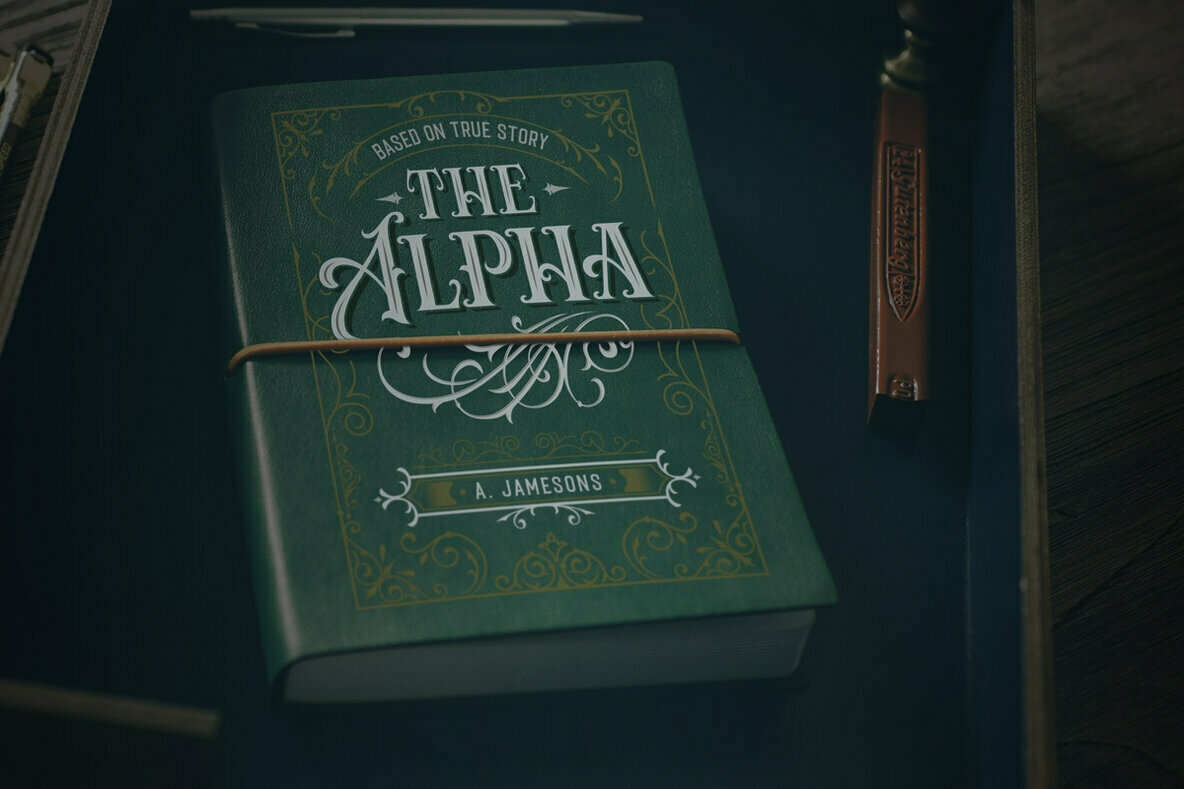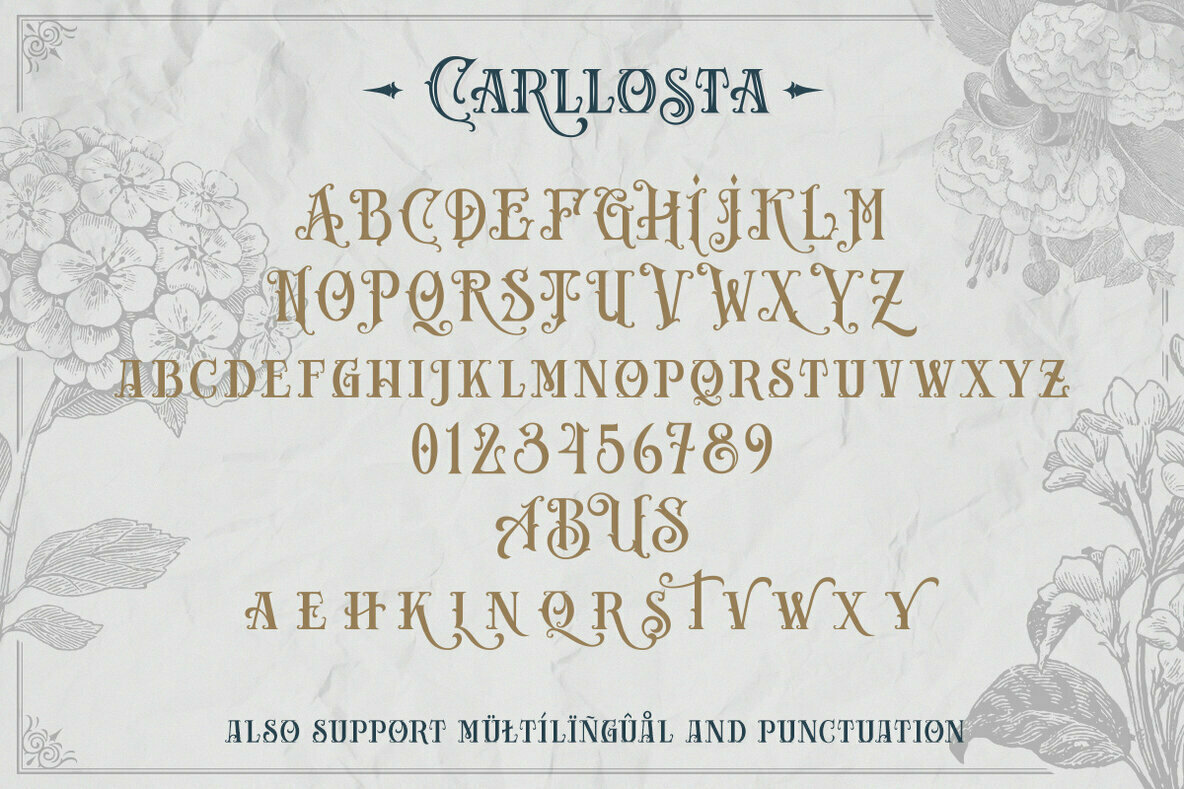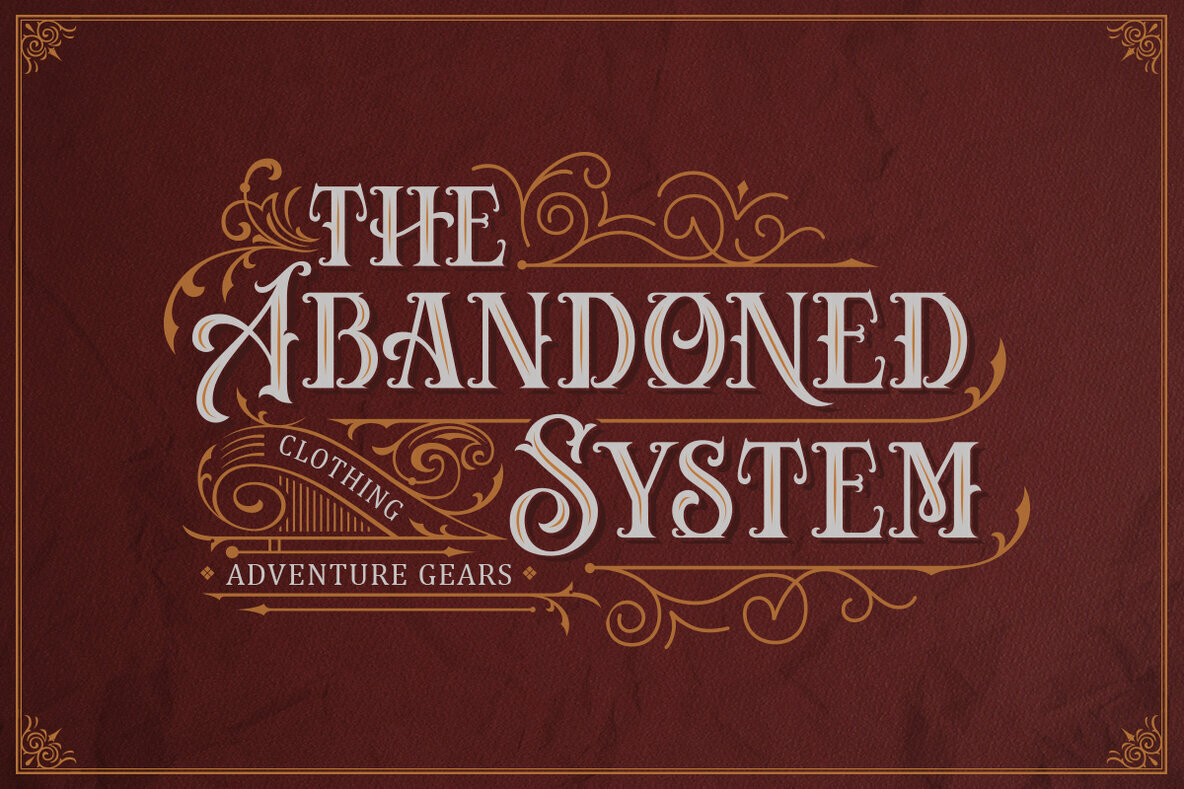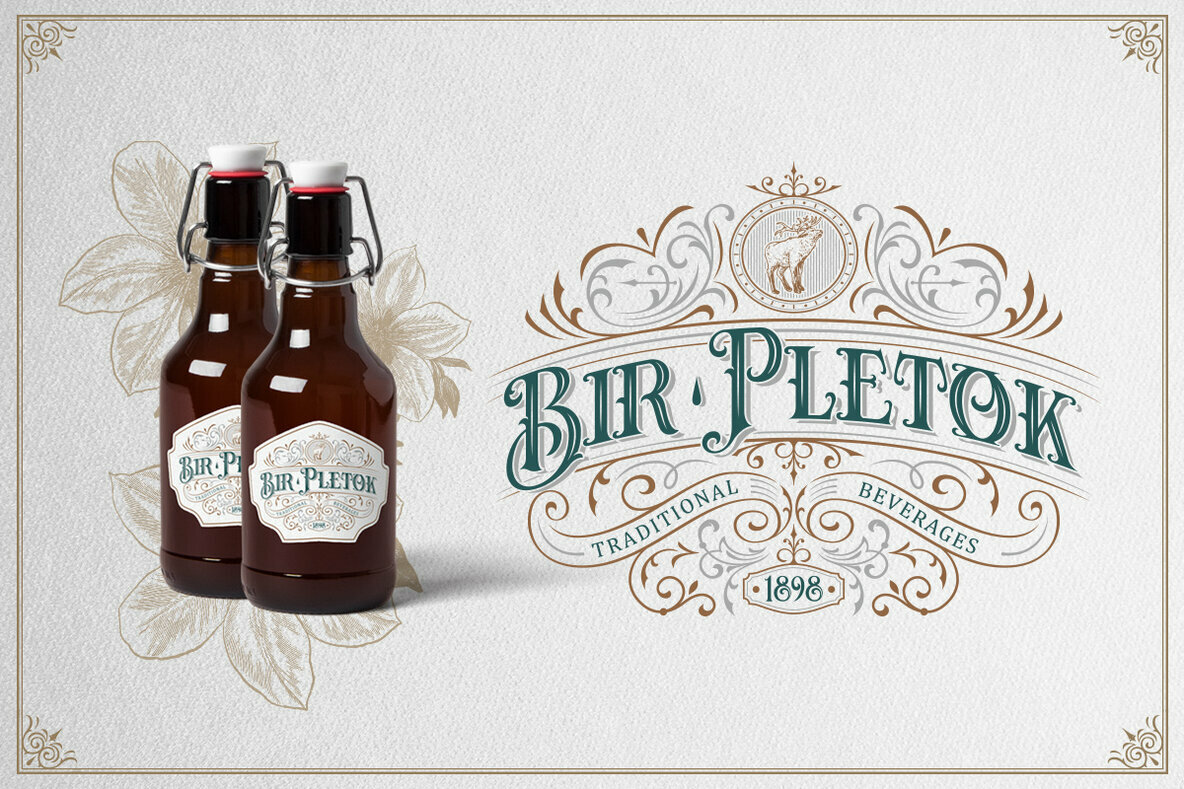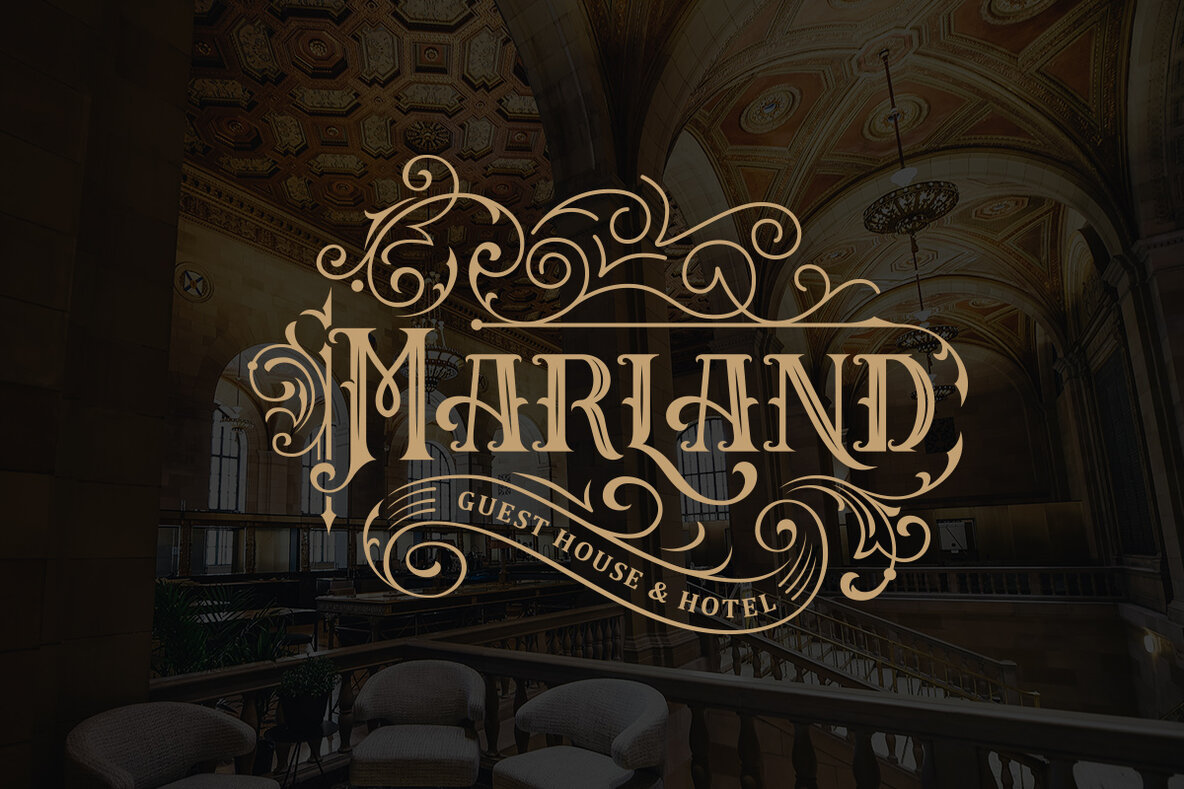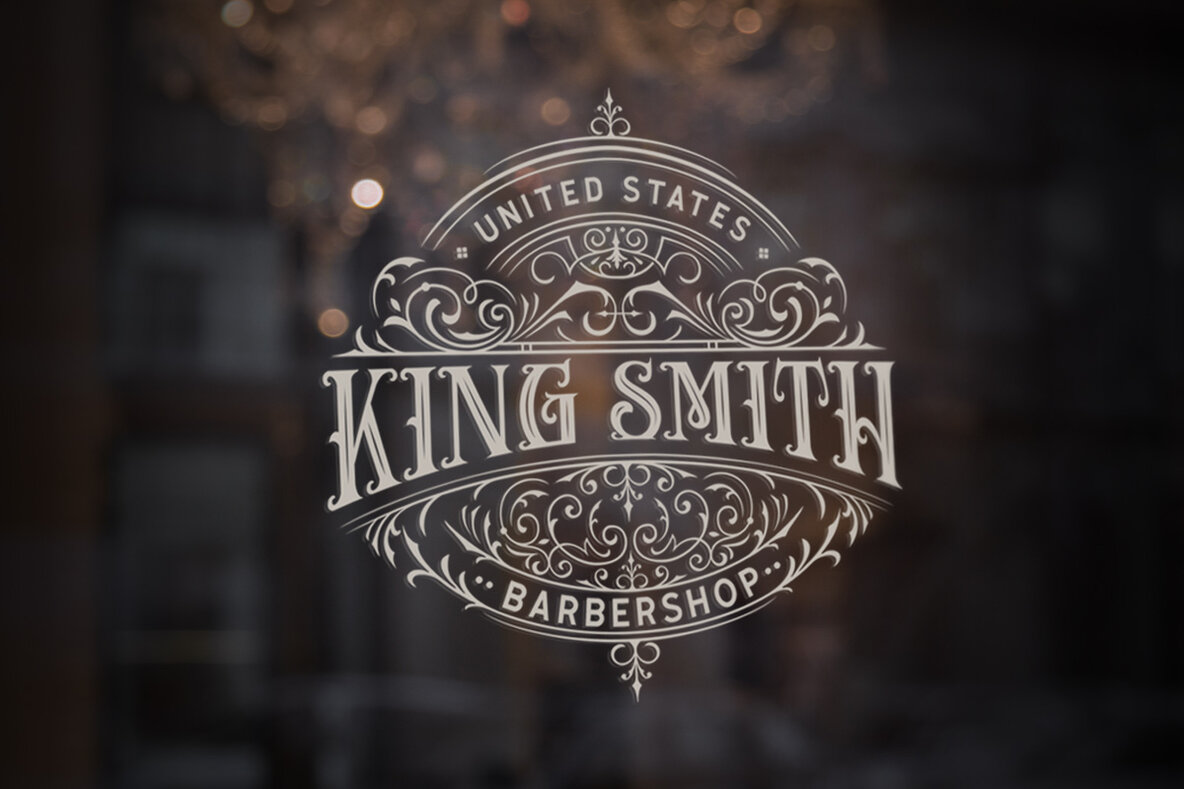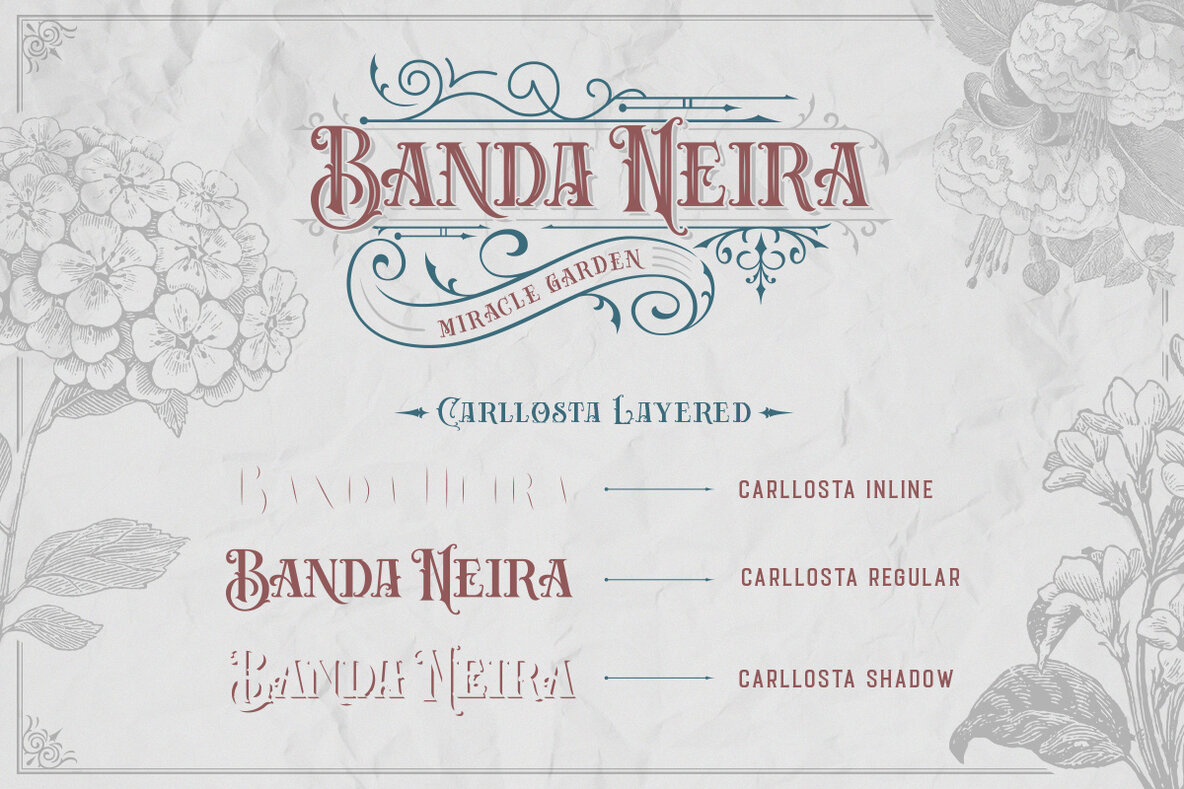
Carllosta Font
Carllosta is a layered typeface which is inspired by vintage lettering sign and art. While this font has a victorian touch, it still looks bold and solid. Very suitable for for headline, logotype, apparel, invitation, branding, packaging, advertising etc.